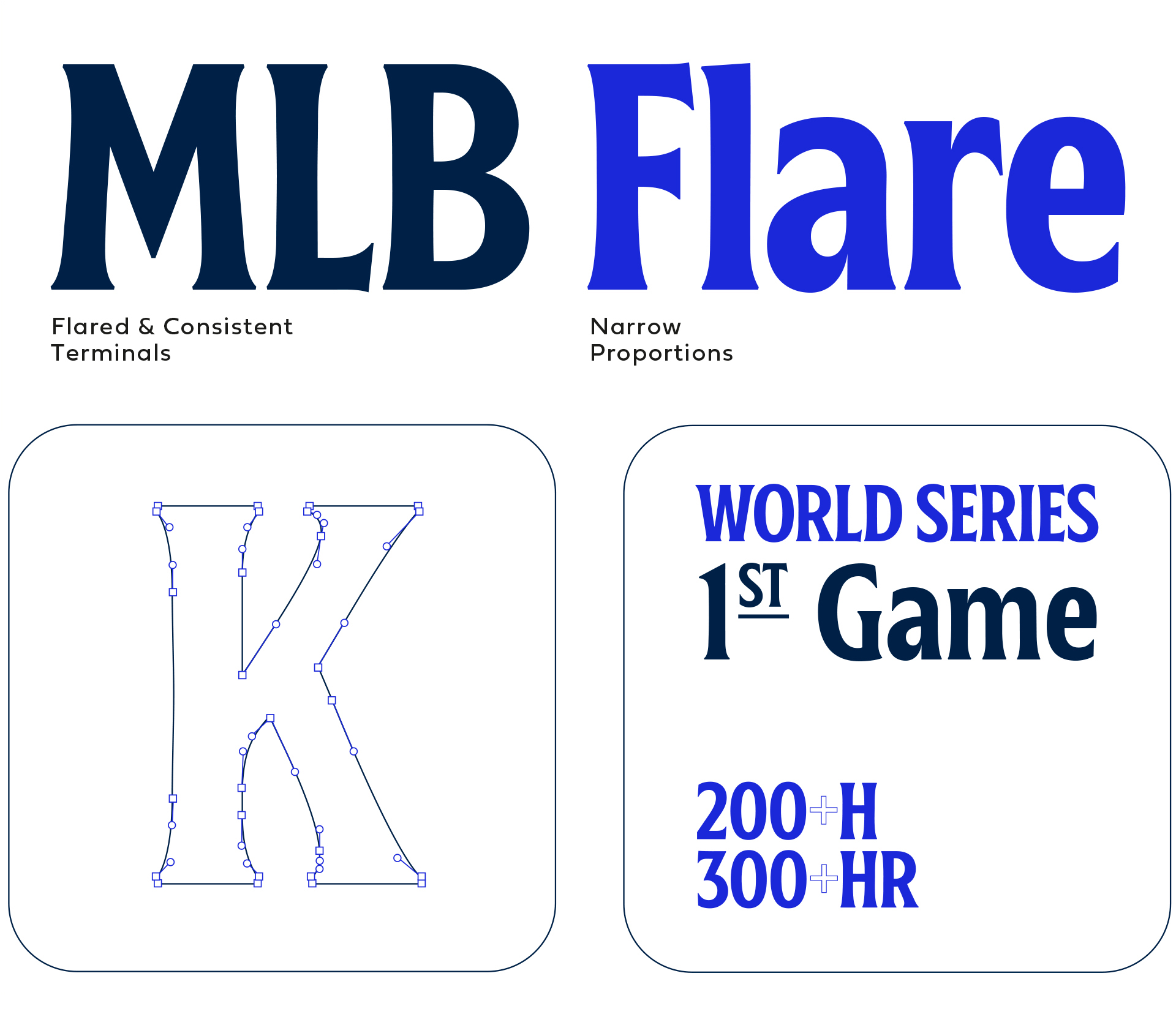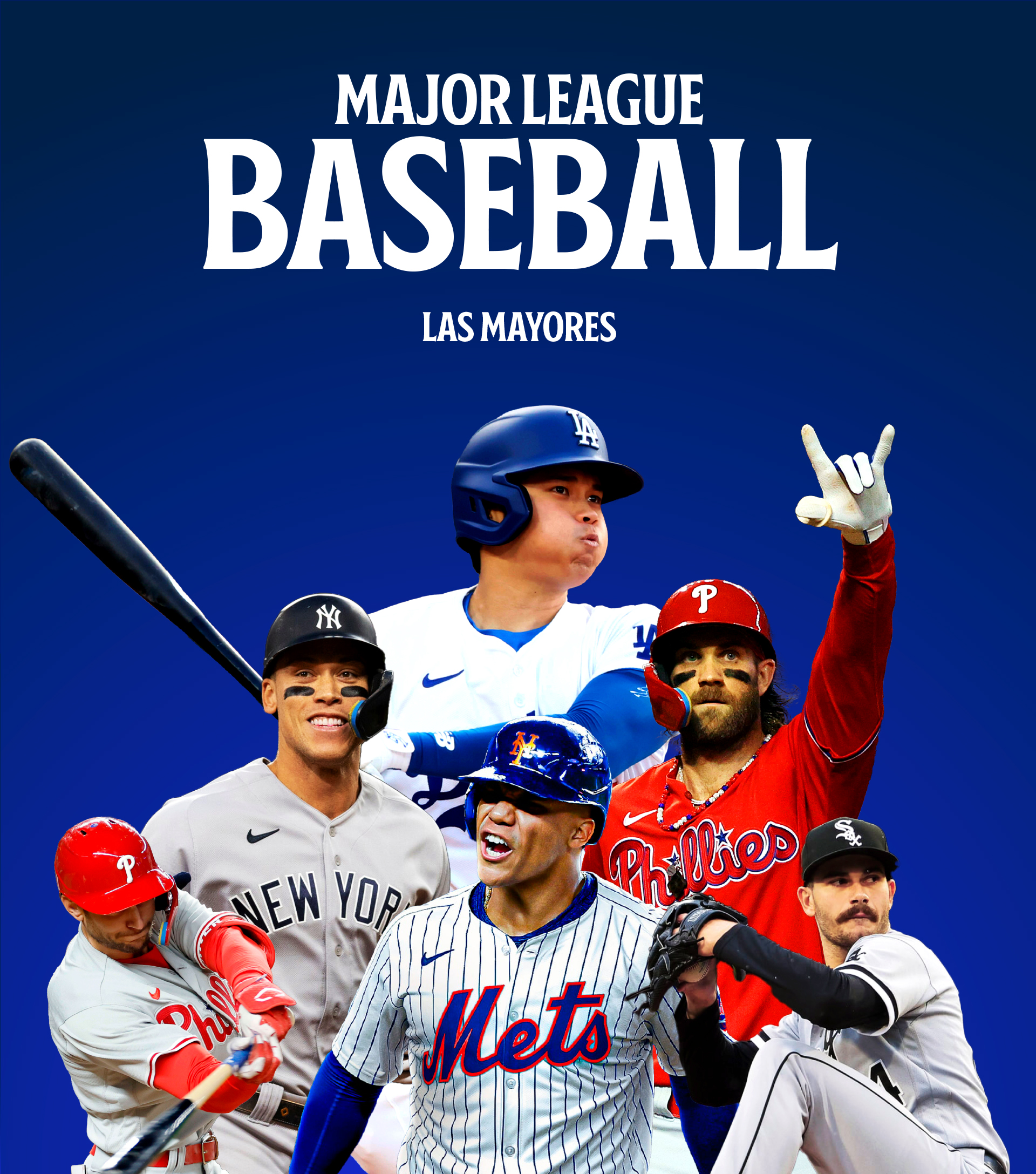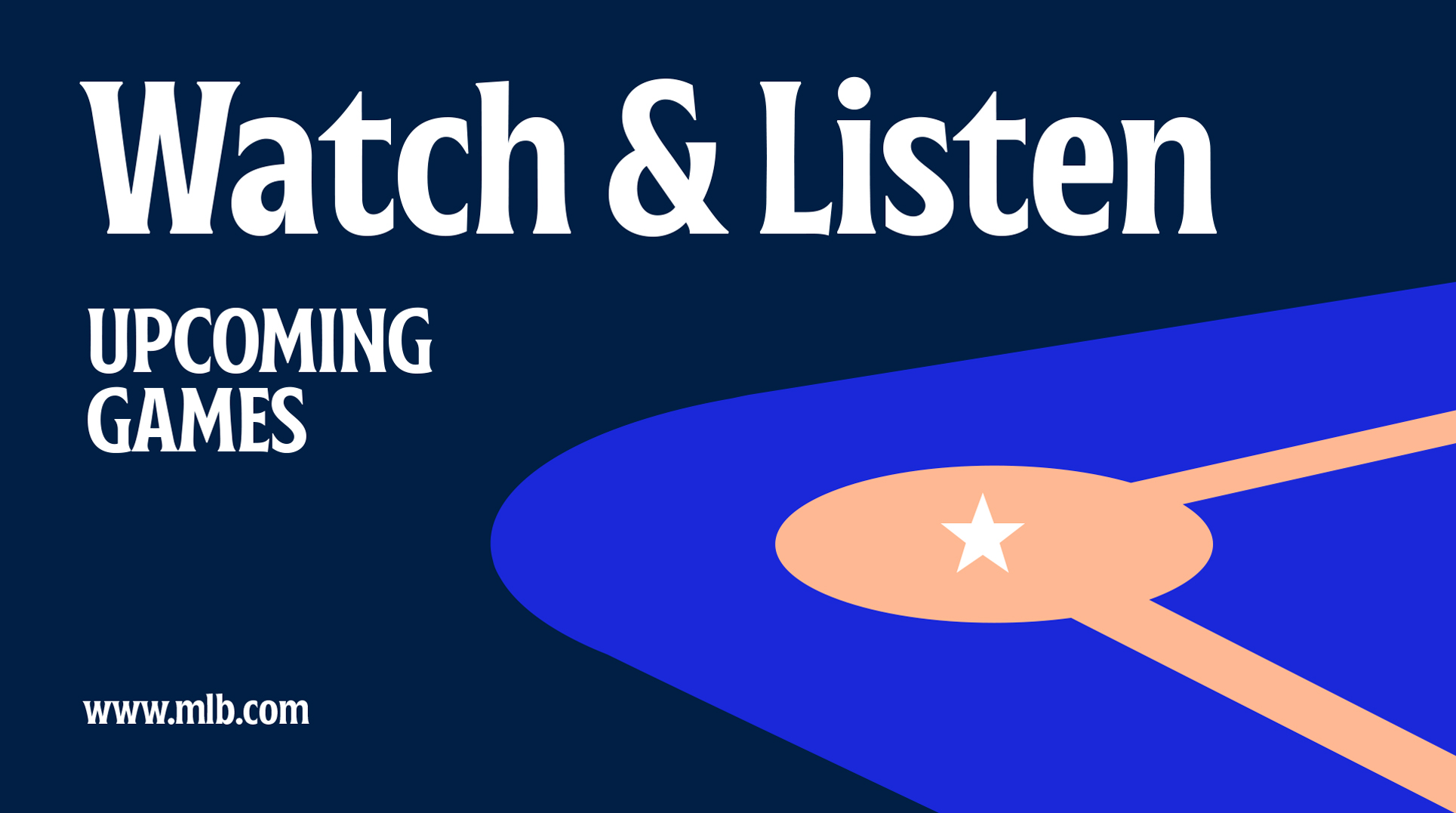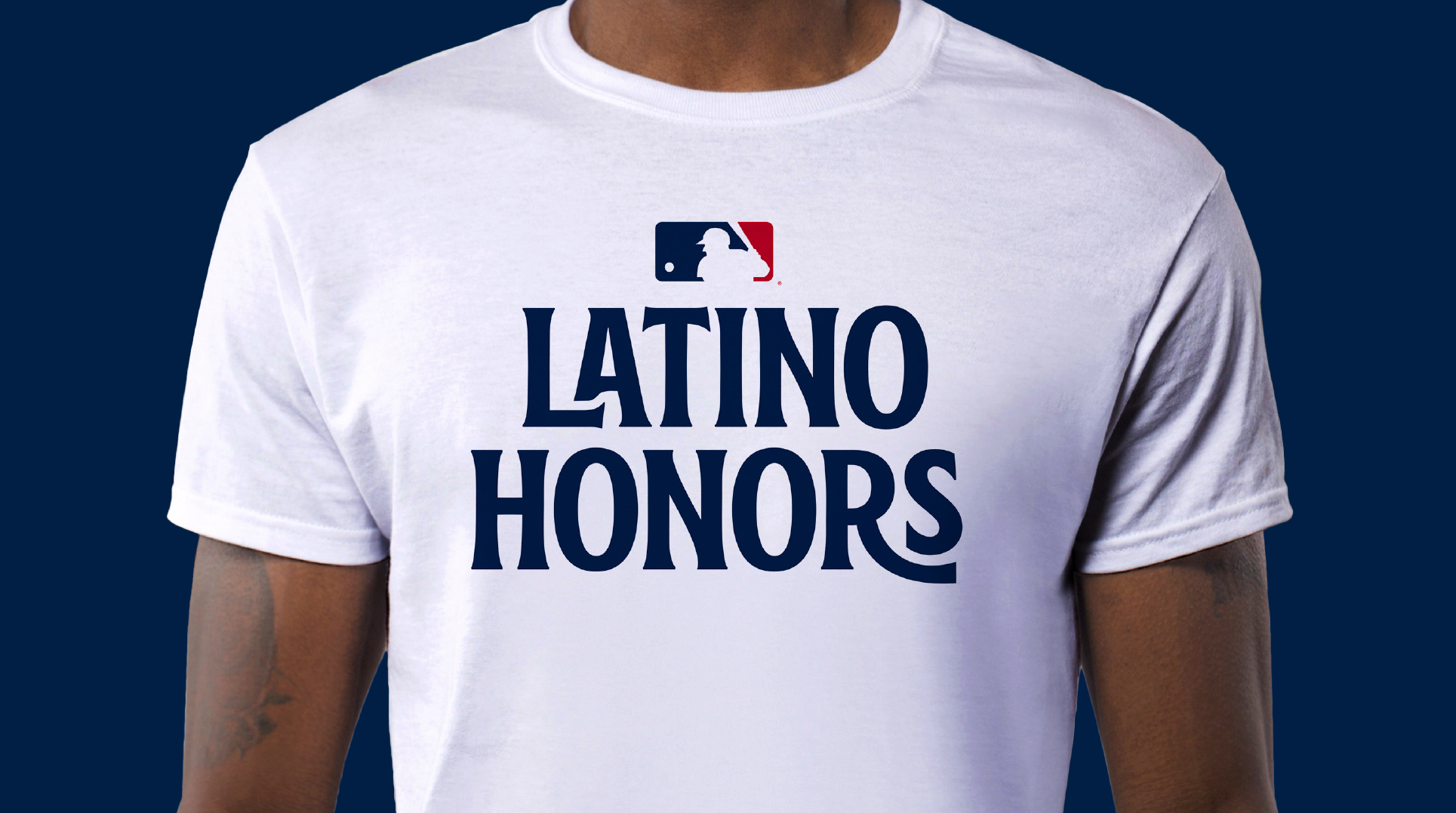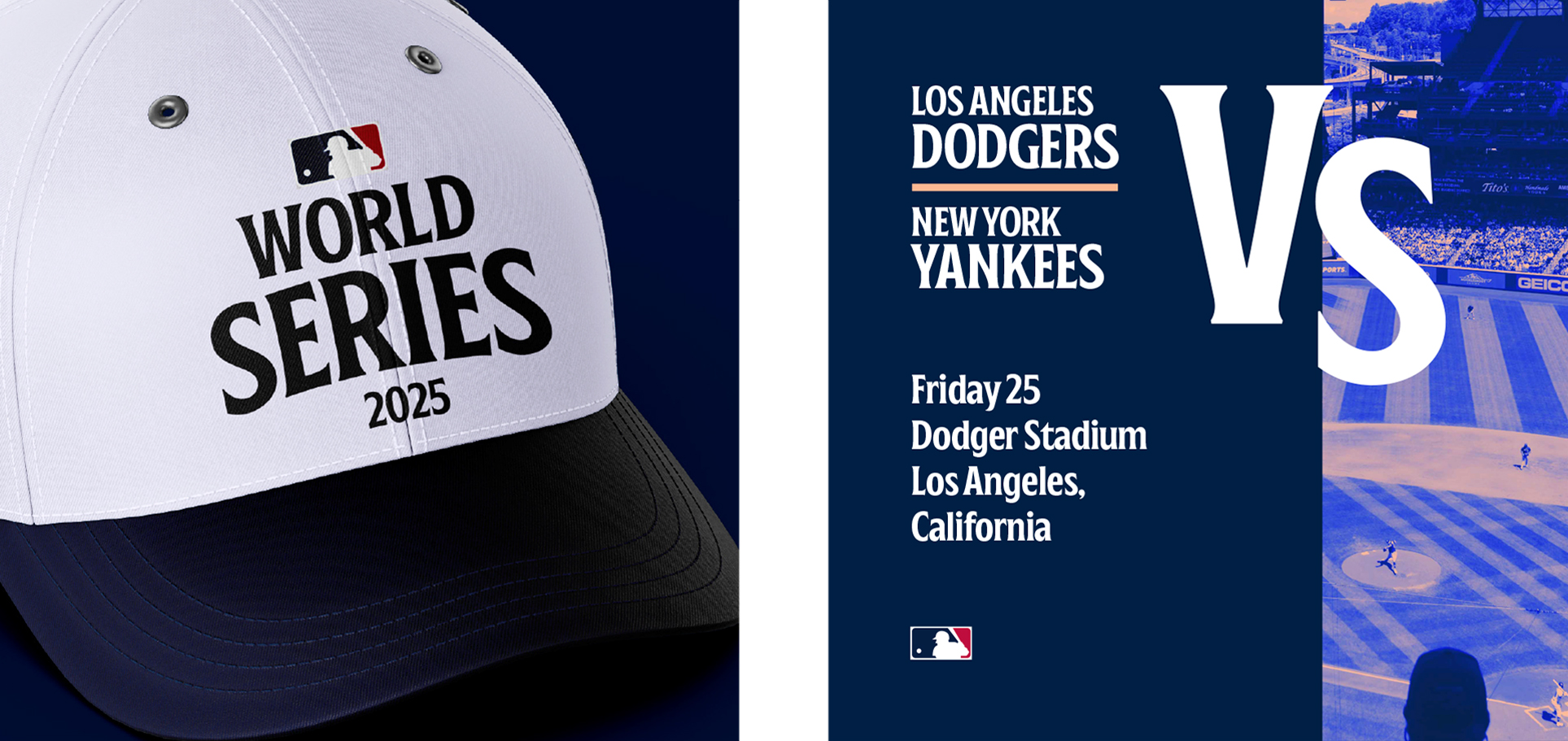
Custom typeface
Custom font for Major League Baseball
Mother Design studio worked to create an identity system for Major League Baseball and looked back to baseball’s visual history to bring its most iconic expressions into the future. They tooked an interesting path thinking how they could use their typographic heritage and shared visual language to celebrate where they meet and where they come from.
Mother Design made a curated collection of baseball’s greatest types and asked different american foundries to design each style of typeface. We collaborate designing a flared serif typography calling back to the particulars of hand-lettering that brings a touch of warmth and charm that feels uniquely baseball.